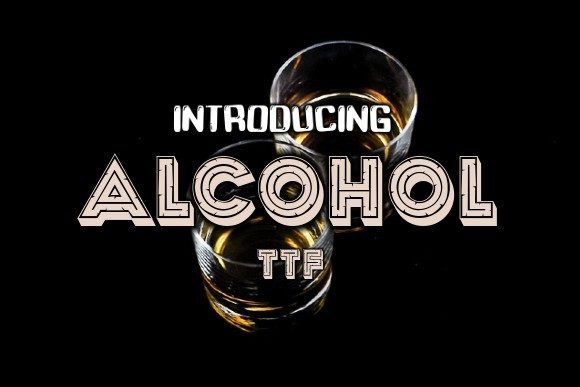
The Power of Alcohol Font: Unleashing Boldness in Your Designs
I’ll never forget the time I was working on a project for a trendy bar’s rebranding. I had a clear vision of what I wanted to achieve – a bold, eye-catching logo that exuded confidence and energy. However, I was struggling to find the perfect font to bring my design to life. That’s when I stumbled upon Alcohol Font, a game-changing decorative font that instantly elevated my design. In this article, I’ll share my experience with Alcohol Font, its features, and how to make the most of it in your designs.
What Makes Alcohol Font Special?
Alcohol Font is a bold and assertive decorative font that reads as strong, confident, and dynamic. It’s perfect for adding a touch of cool character to your designs. Here are some of the things I love about Alcohol Font:
• ✨ Unique and eye-catching: Alcohol Font has a distinct personality that sets it apart from other fonts.
• ✅ Highly versatile: It can be used for a wide range of design projects, from logos and posters to social media graphics and more.
• 💥 Impactful: This font is designed to make a statement, adding a bold and confident touch to your designs.
Honest Review: The Good and the Quirks
While I absolutely love Alcohol Font, there are a few quirks to be aware of:
• 🤔 Limited use cases for body text: Due to its bold and decorative nature, Alcohol Font is best suited for headlines and titles rather than body text.
• ⚠️ Requires careful kerning: As with any decorative font, kerning can be a bit tricky, so be sure to adjust the spacing to ensure optimal readability.
The Story Behind Alcohol Font
Alcohol Font was designed by a team of creatives who wanted to create a font that exuded confidence and energy. Inspired by the world of advertising and branding, they crafted a font that would help designers make a bold statement. The result is a font that’s both eye-catching and versatile.
Font Name Alcohol Font
Author vladimirnikolic
What is Alcohol Font best used for? Alcohol Font is best used for headlines, titles, and other display text where a bold and confident look is desired.
Can I use Alcohol Font for body text? While possible, Alcohol Font is not ideal for body text due to its bold and decorative nature. It’s best suited for short bursts of text.
Is Alcohol Font suitable for digital use? Yes, Alcohol Font is suitable for digital use, including social media graphics, website headers, and more.